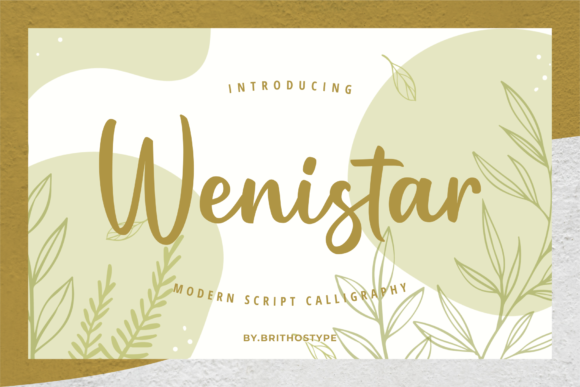
Immerse yourself in the enchanting world of Wenistar, a script font that exudes elegance and charm. With its graceful strokes and playful curves, Wenistar will bring a touch of whimsy and delight to all your digital creations.
Crafted with meticulous attention to detail, Wenistar is the perfect choice for those seeking a font that is both visually appealing and highly functional. Its versatility makes it suitable for a wide range of projects, from personal invitations and greeting cards to professional presentations and marketing materials.
Step into a world of creativity and expression with Wenistar. Let your imagination soar as you explore the endless possibilities that this beautiful font offers. From eye-catching headlines to captivating social media posts, Wenistar will transform your words into works of art.
Unleash your inner artist and embrace the magic of Wenistar. Its playful nature invites you to experiment and create designs that are uniquely yours. Whether you're a seasoned designer or just starting your creative journey, Wenistar is the perfect companion to guide you along the way.